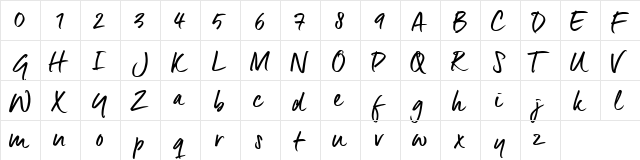
Epistula TRIAL Regular
| Designer | Geert |
Design Context for Epistula TRIAL Typeface
Epistula TRIAL is a composed and adaptable typeface that performs quietly and consistently across a wide range of design contexts.